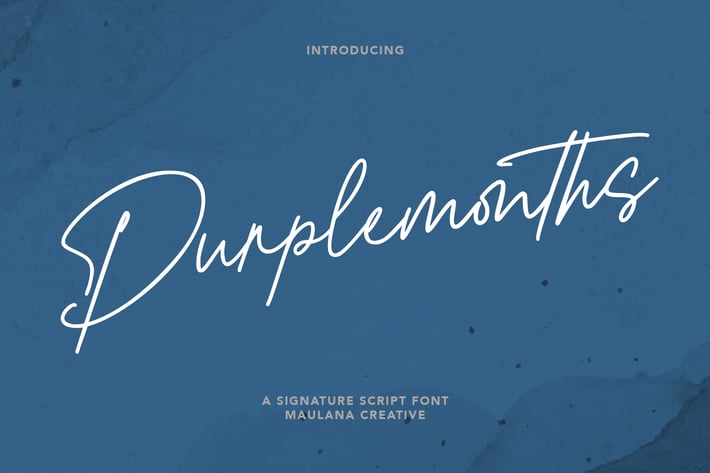
Purplemonths Signature Font
Purplemonths is a Modern Signature script font inspired by modern script nowadays, it is casual and fancy font. Purplemonths includes opentype features Ligatures and Alternate lowercase. It support multilingual more than 100+ language. This font is good for logo design, Movie Titles , Books Titles and any awesome project you create. Make stunning work with Purplemonths Signature font.